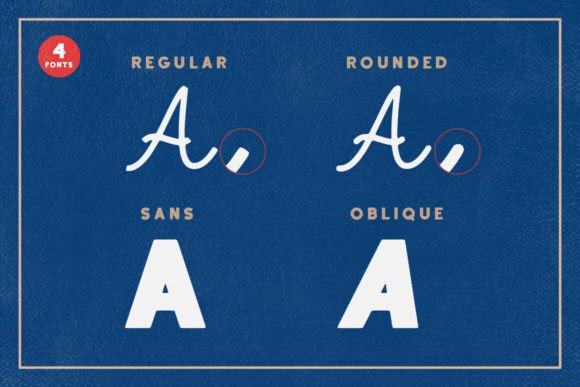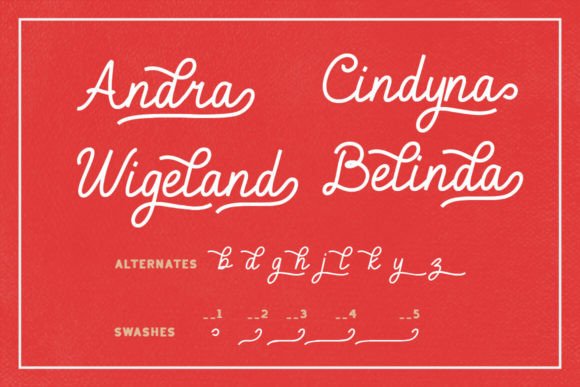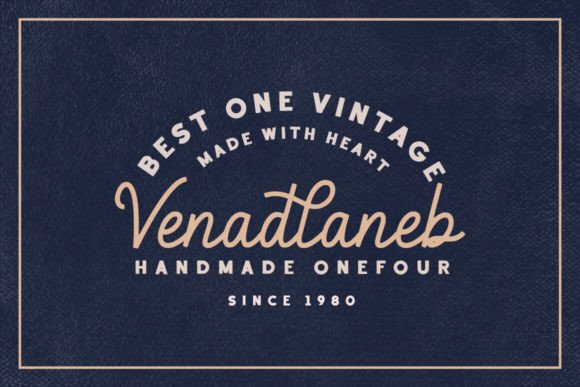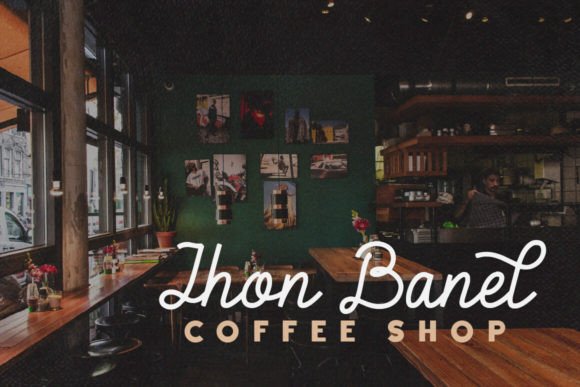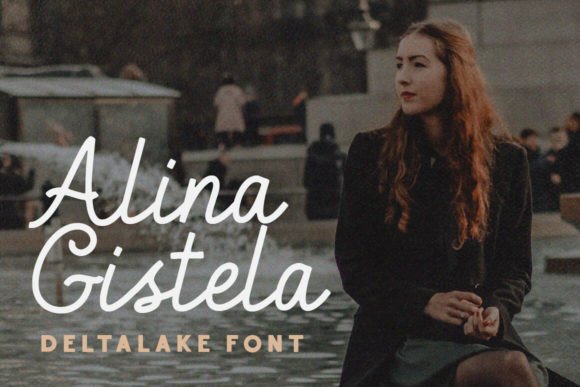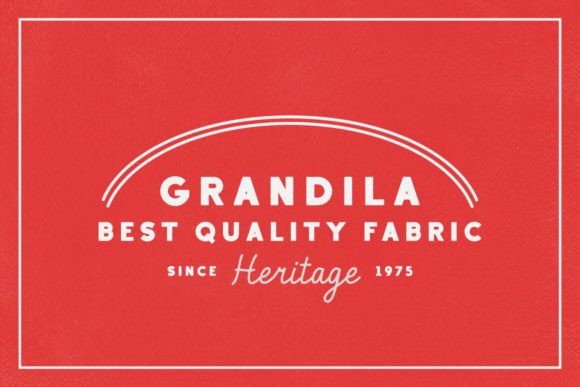
Introducing Delta Lake Font: A Beautiful Handwritten Brush Script Font
Are you looking for a font that can add a touch of elegance and sophistication to your designs? Look no further than Delta Lake Font, a stunning handwritten brush script font that is sure to impress. With its elegant tails at the beginning and end of each letter, Delta Lake Font is perfect for a variety of design projects, from wedding invitations and branding materials to packaging and more.
What Makes Delta Lake Font So Special?
Delta Lake Font is a beautiful handwritten brush script font that features elegant tails at the beginning and end of each letter. This unique design element gives the font a distinctive look that is both elegant and sophisticated. The font also offers ligatures, enabling certain letter combinations to flow seamlessly for a more natural and authentic appearance. This means that you can create beautiful, flowing text that looks like it was written by hand.
Key Features of Delta Lake Font
- Elegant tails: Each letter has elegant tails at the beginning and end, giving the font a distinctive and sophisticated look.
- Ligatures: The font offers ligatures, allowing certain letter combinations to flow seamlessly for a more natural and authentic appearance.
- Handwritten brush script: Delta Lake Font is a handwritten brush script font, giving it a personal and unique touch.
- Versatile: The font is perfect for a variety of design projects, from wedding invitations and branding materials to packaging and more.
Uses for Delta Lake Font
Delta Lake Font is a versatile font that can be used for a wide range of design projects. Here are a few ideas to get you started:
- Wedding invitations: The elegant and sophisticated design of Delta Lake Font makes it perfect for wedding invitations and other wedding-related materials.
- Branding materials: The font’s unique and distinctive look makes it ideal for branding materials, such as logos, business cards, and letterheads.
- Packaging: Delta Lake Font can add a touch of elegance and sophistication to packaging materials, such as labels and product tags.
- Social media graphics: The font’s handwritten brush script style makes it perfect for social media graphics, such as quotes, inspirational messages, and more.
Tips for Using Delta Lake Font
Here are a few tips for using Delta Lake Font in your designs:
- Use it sparingly: Delta Lake Font is a bold and elegant font, so it’s best to use it sparingly to add emphasis and interest to your designs.
- Pair it with other fonts: The font pairs well with other fonts, such as sans-serif fonts, to create a beautiful and harmonious design.
- Experiment with colors: Delta Lake Font looks great in a variety of colors, so don’t be afraid to experiment and find the perfect color for your design.